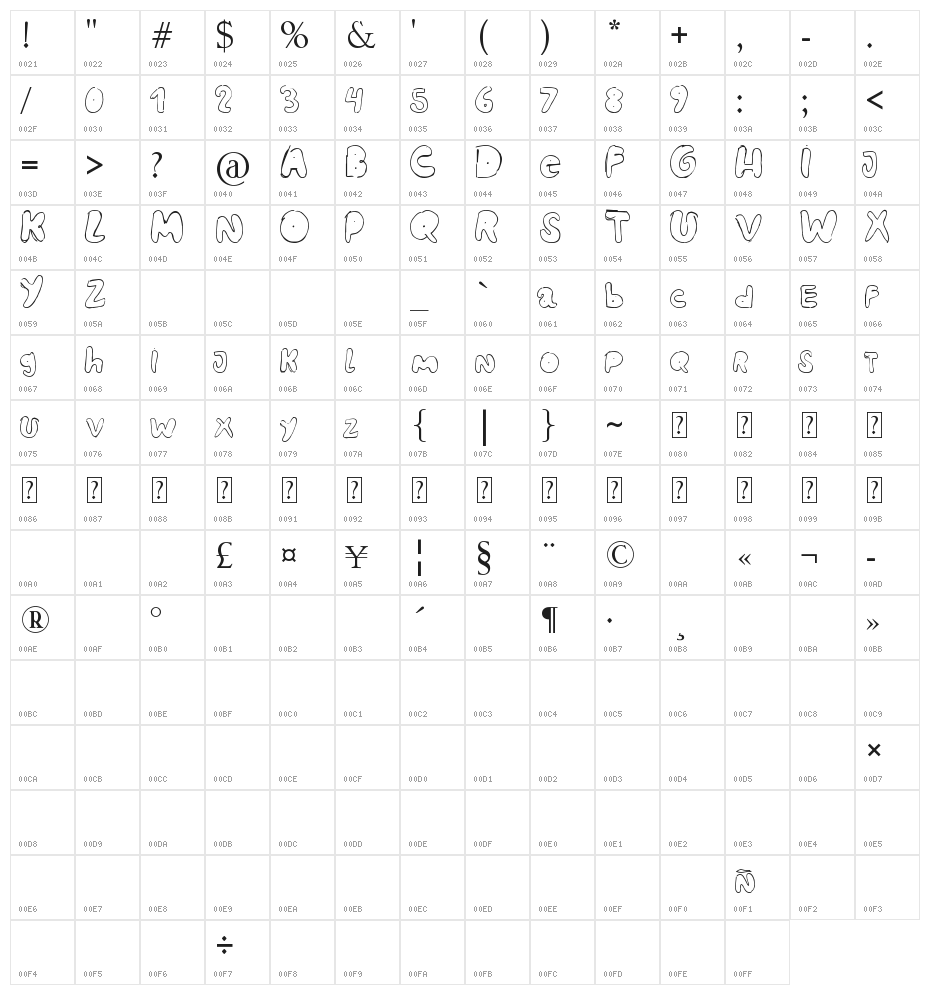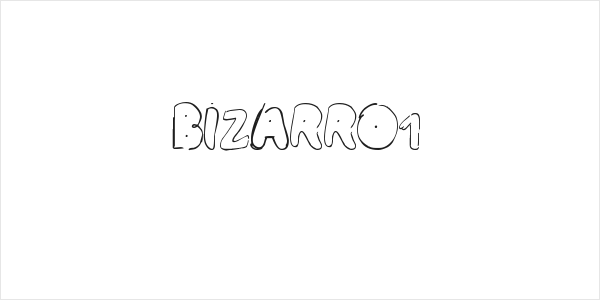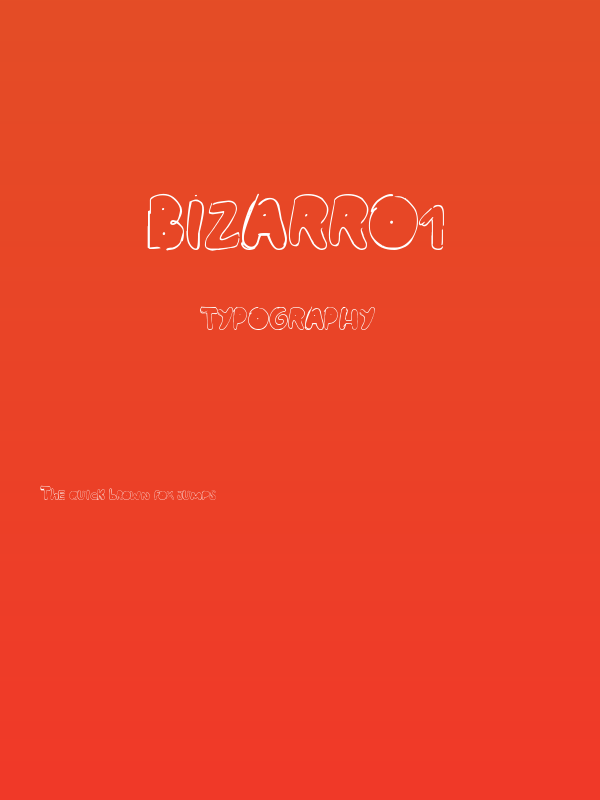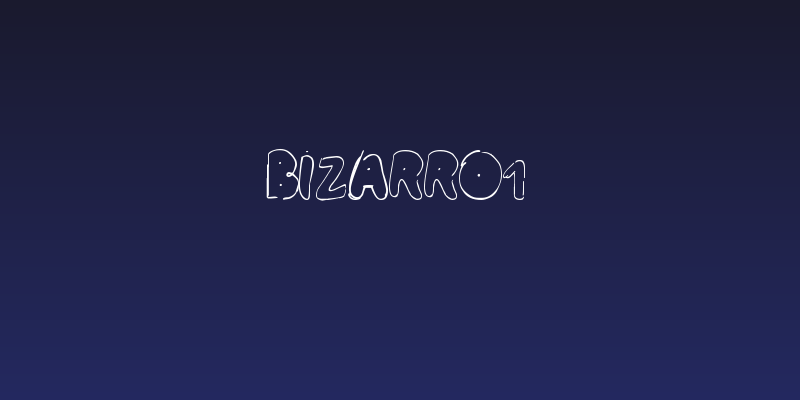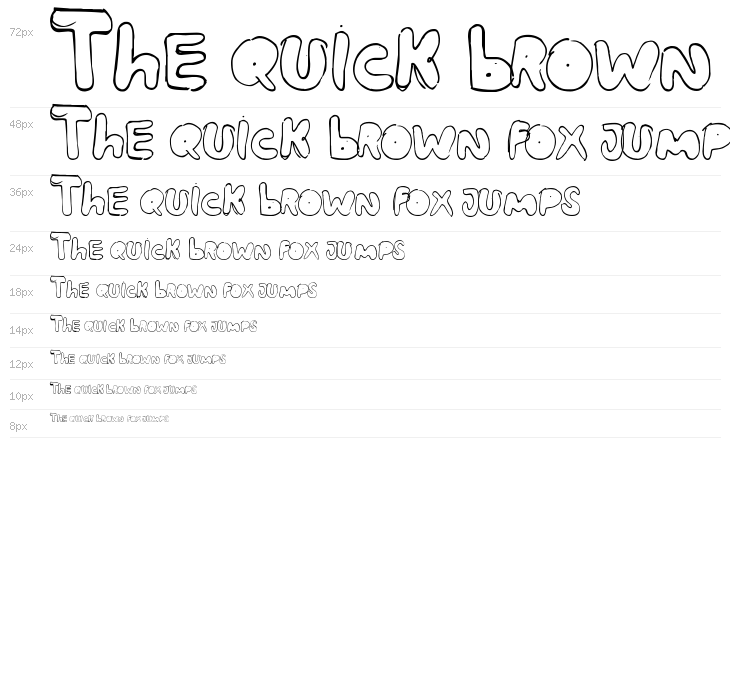
BIZARRO1 Font
BIZARRO1 Description
This font features a playful and whimsical design, characterized by its bold, rounded letters with a hand-drawn appearance. The strokes are thick and uneven, giving it a casual and informal feel. The uppercase and lowercase letters maintain a consistent style, with exaggerated curves and loops that add to its quirky charm. The numbers and special characters follow the same playful aesthetic, making the font suitable for creative and fun projects. Its unique style is reminiscent of doodles or comic lettering, making it stand out in any design.
Overall StyleWhimsical, Playful, Casual
Proposed ProjectsIdeal for children's books, comic strips, playful branding, and creative posters.